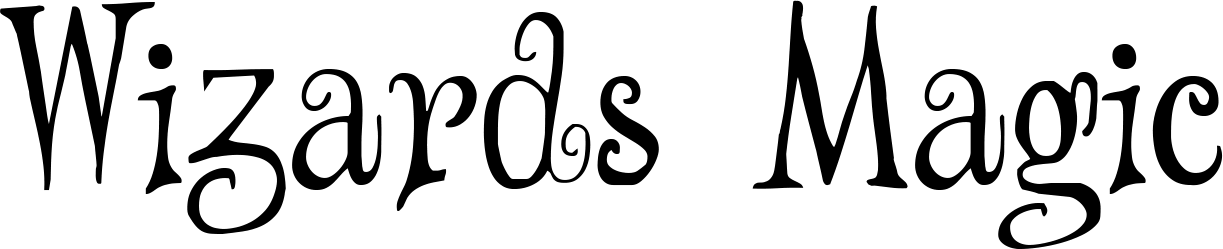
Wizards Magic Font
Wizards Magic font is one of the most mysterious styles you will encounter. Each of the characters has a crescendo shape, indicating entering a magical world. Choose this to design enchanting, animated, and movie posters.
This fantasy and has no numbers, but do not worry, you can still try your luck at designing spooky and magical posters.
After reading J K Rowling’s magical Harry Potter books I wanted to create a swirling star encrusted font that would capture the imagination.